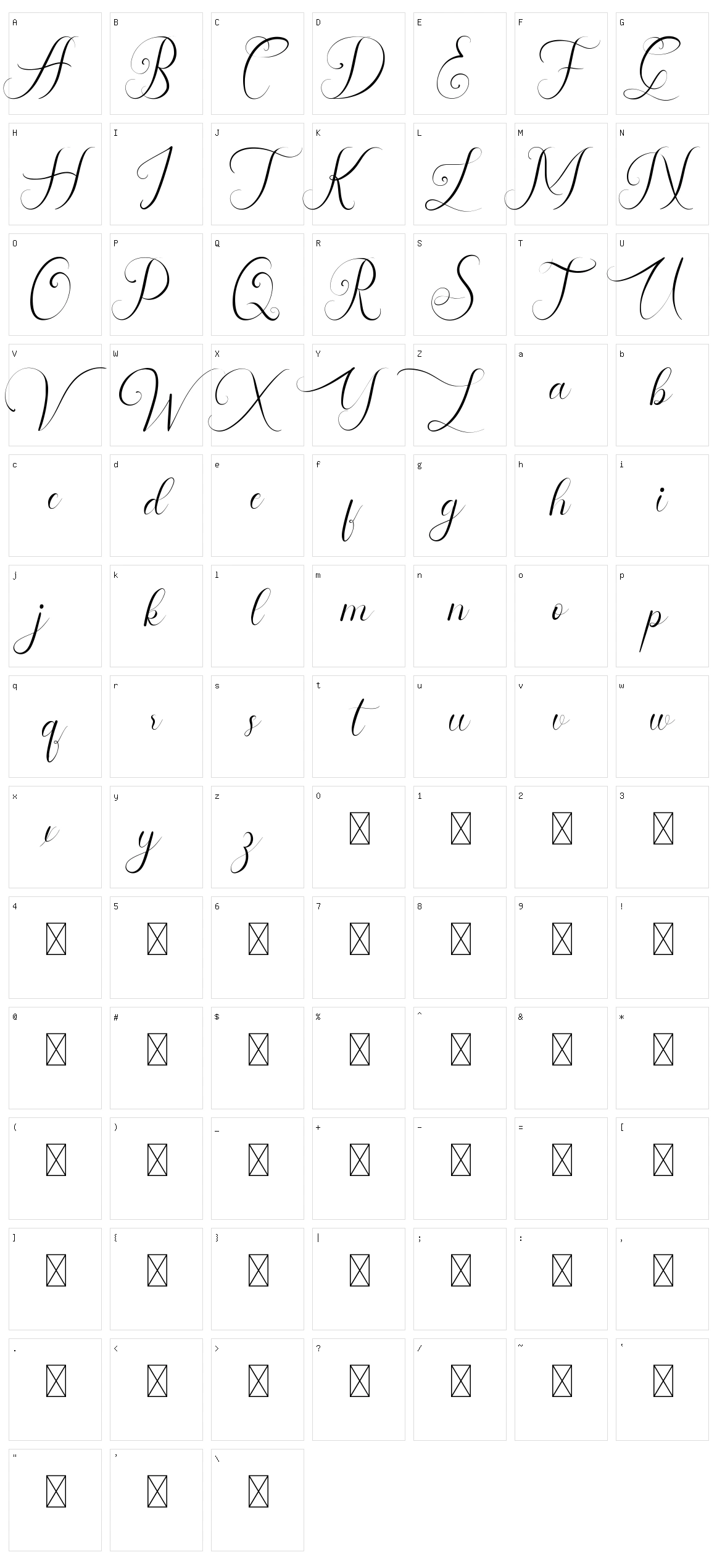
The free font Gloria Beauty is carefully designed by Edric Studio, showcasing a thoughtful balance of creativity and usability and falls under the Script font style. When you download the ZIP file, it contains only 54.29 KB of font files, making it lightweight and quick to download. Please review the license details below to understand permitted usage and distribution rights. If license information is not available, we recommend using this font for personal projects only or contacting the author directly for commercial usage permissions.